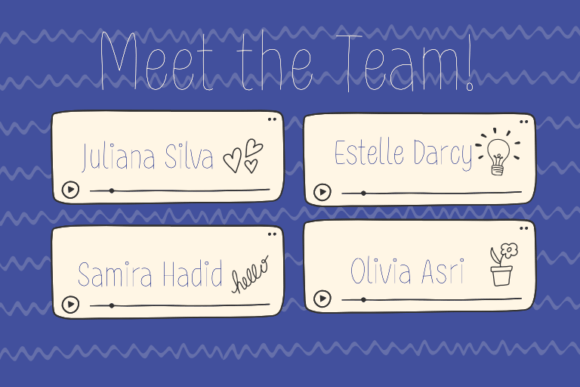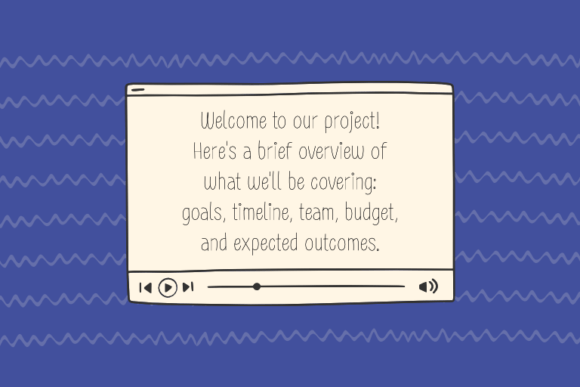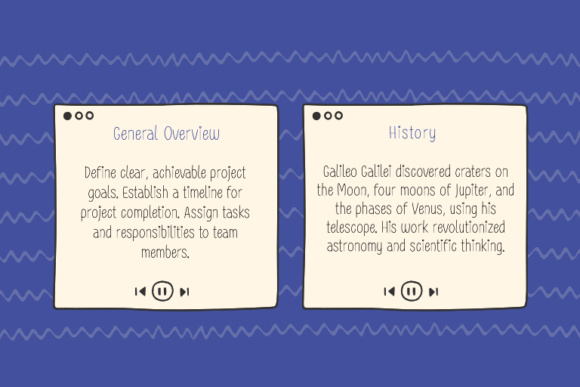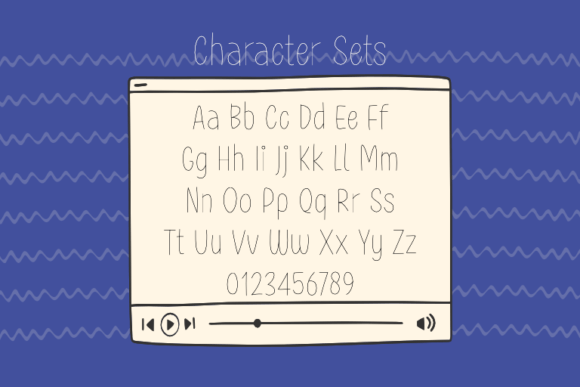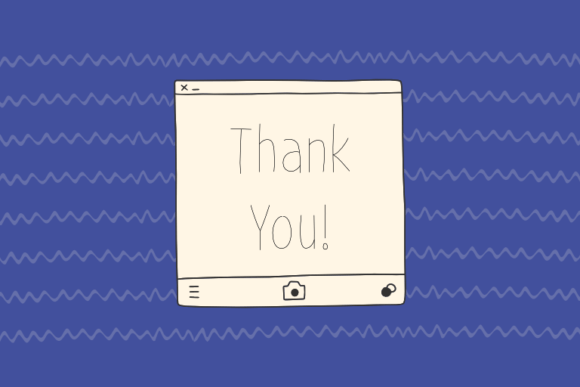
Introduction to Simplify Notation Font
As designers, we’ve all been there – staring at a blank canvas, trying to bring our creative vision to life. The search for the perfect font can be overwhelming, but sometimes, it’s the simplicity that truly stands out. That’s where the Simplify Notation Font comes in – a sleek and contemporary single-line script font that adds a touch of modern elegance to any design.
This beautiful font is more than just a design resource; it’s a high-quality addition to your creative project. With its smooth and fluid lettering, it’s perfect for adding a touch of sophistication to any layout. Whether you’re working on a project with a transparent background or need a font that will stand out, Simplify Notation Font is a valuable asset for designers.
Key Features of Simplify Notation Font
- High-quality design resource ideal for creative projects, including music sheets, scores, and other musical compositions.
- Features a transparent background, allowing for easy layering and composition in design projects.
- Designed with a minimalist aesthetic, the Simplify Notation Font is perfect for those seeking a clean and unobtrusive typography solution.
Honest Review: Simplify Notation Font
I recently stumbled upon the Simplify Notation Font and was excited to give it a try. As a designer, I’m always on the lookout for high-quality design resources to enhance my creative projects.
Here are the things that worked well for me:
- ✨ The font is incredibly legible, even at smaller font sizes.
- ✨ The transparent background option is a game-changer for layered designs.
- ⚠️ The font selection is relatively limited, with only a few styles to choose from.
- ⚠️ The font may not be suitable for projects that require a lot of bold or italic text.
Overall, I’m impressed with the Simplify Notation Font and would definitely recommend it for simple, straightforward design projects. The high quality and transparent background make it a great choice for designers looking to add a professional touch to their work.
Simplify Notation Font
To get the most out of the Simplify Notation Font, experiment with different font sizes, colors, and combinations to achieve the desired effect. You can also use it in conjunction with other design resources for a unique look.
The Simplify Notation Font is perfect for presentations, reports, and other business documents. It’s also great for creative projects such as logos, typography, and graphic designs.